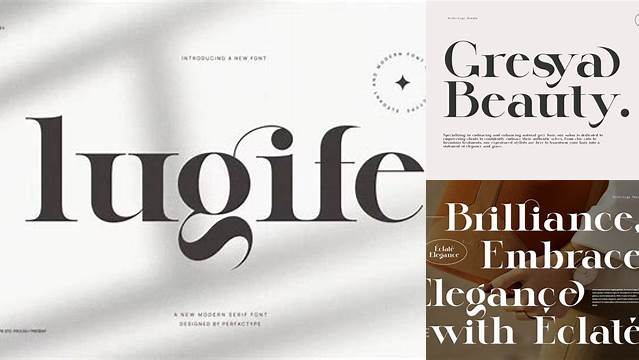
Lugife: Modern Elegant Serif Font Free Download
Lugife: Modern Elegant Serif Font Free Download - Elevate Your Design
Are you on the hunt for a typeface that screams sophistication, elegance, and a touch of modernity? Look no further, my friends, because the Lugife modern elegant serif font free download is here to revolutionize your design projects! This font is not just a collection of letters; it's a statement, a vibe, a whole aesthetic waiting to be unleashed. Let's dive deep into what makes Lugife so special and how you can get your hands on this design gem.
1. Unveiling Lugife: The Essence of Modern Elegance
Guys, first things first, what exactly is Lugife? Simply put, it's a meticulously crafted serif font that embodies the perfect blend of contemporary and classic design principles. Imagine a font that's both timeless and utterly current; that's Lugife. Its clean lines, refined serifs, and balanced proportions make it incredibly versatile, suitable for a wide range of applications. From branding to editorial design, Lugife adds a touch of class and refinement. The beauty of Lugife lies in its understated elegance. It's not overly flashy or complicated; instead, it relies on its inherent quality and attention to detail to captivate the viewer. This makes it an excellent choice for designs that aim to project a sense of trustworthiness, sophistication, and style. Think of luxury brands, high-end publications, or websites that prioritize a premium feel – Lugife fits right in. Moreover, this font’s design is inherently readable. The characters are well-defined, allowing for easy comprehension, even at smaller sizes. This makes Lugife a practical choice for body text, headings, and subheadings. It's a font that doesn't sacrifice legibility for aesthetics, ensuring that your message is communicated clearly and effectively. The font’s versatility extends beyond just its appearance. It’s also designed to work well in various contexts, whether you are creating a website, designing a brochure, or crafting social media graphics. Lugife’s adaptable nature is what makes it a true asset for any designer’s toolkit. The modern aesthetic of Lugife also helps to make it stand out from more traditional serif fonts. It incorporates subtle contemporary elements that keep it fresh and relevant, ensuring your designs feel current and on-trend. So, if you're aiming for a design that is both elegant and modern, Lugife is a top contender.
2. Exploring the Design Features of Lugife Font
Okay, let's get into the nitty-gritty. What makes Lugife tick? What specific design features set it apart from the crowd? First off, let's talk about the serifs. They're not just your run-of-the-mill serifs; they're refined. Lugife's serifs are carefully sculpted, adding a touch of grace and sophistication to each letter. The design of each letter is optimized for readability, and the spacing between characters is meticulously balanced. This attention to detail ensures that your text looks great at all sizes, whether it's a headline on a website or the body text of a printed document. The letterforms themselves are designed with clean lines and a balanced weight distribution. This gives Lugife a polished and professional appearance, making it suitable for various design projects. The font also has a variety of weights, providing flexibility in how you use it. You can choose a lighter weight for a more delicate look or a heavier weight for a bolder statement. In essence, the various weights allow you to emphasize certain elements of your design, like highlighting a particular word or creating visual hierarchies. The font includes a comprehensive set of characters. It covers all the standard letters, numbers, and punctuation marks, as well as a variety of special characters and ligatures. This wide range of glyphs gives you the versatility to use Lugife in any language and ensures you have everything you need to execute your design vision. Moreover, Lugife can be paired with other fonts. Consider pairing it with a sans-serif font for a website or a display font for a logo. The key is to find fonts that complement each other, adding a harmonious feel to your overall design. The choice to use a serif font such as Lugife is also something to take into account. Serif fonts tend to evoke feelings of sophistication and trust. In comparison to sans-serif fonts, they may be a better option for formal projects or projects that are meant to appear professional. Ultimately, Lugife's design features are all about creating a font that is both beautiful and functional, making it a valuable asset for any designer.
3. Why Choose a Serif Font Like Lugife?
Why opt for a serif font at all, especially in a world where sans-serif fonts seem to dominate the digital landscape? Well, let me tell you, a serif font like Lugife modern elegant serif font free download brings a certain je ne sais quoi to the table. Serif fonts are traditionally associated with sophistication, elegance, and a sense of history. They evoke a feeling of trust and reliability, making them a great choice for brands that want to project a sense of authority and heritage. In contrast to their sans-serif counterparts, serif fonts often guide the eye more fluidly across a line of text. The serifs, those little strokes at the end of each character, act as visual cues, helping the reader to follow the text. This can improve readability, especially in longer blocks of text. The versatility of serif fonts is also worth noting. They can work beautifully in a wide range of design contexts. From print materials to websites, serif fonts like Lugife add a touch of class and refinement that's hard to beat. They are also a great way to add visual interest to your designs. The serifs themselves can be varied in style, shape, and weight, allowing you to create a unique and customized look for your project. The best serif fonts, like Lugife, are designed with careful attention to detail, ensuring a balance between aesthetics and usability. It's important to remember that not all serif fonts are created equal. Lugife stands out because of its modern interpretation of the classic serif style. It incorporates subtle contemporary elements, making it a great choice for designs that aim to be both elegant and current. Choosing Lugife means you're not only getting a beautiful font, you're also getting a versatile tool that can elevate your designs. It is also a fantastic way to make your project stand out from the crowd, as serif fonts offer a distinctive look. So, if you're looking to infuse your design with sophistication, trust, and a touch of timeless beauty, a serif font like Lugife is the way to go.
4. Best Applications for Lugife: Where Does It Shine?
Where can you really put Lugife modern elegant serif font free download to work? This font is like a chameleon, adapting beautifully to various design applications. It shines in situations where elegance and readability are paramount. Branding projects are a fantastic fit for Lugife. Imagine a logo, a business card, or a set of brand guidelines that feature this font. The sophisticated and modern look of Lugife immediately elevates the brand's image, signaling quality and attention to detail. Editorial design is another area where Lugife excels. Think about the headings and body text of a magazine article, a book chapter, or a newsletter. Lugife's readability and elegant letterforms make it a perfect choice for these contexts. The font can enhance the reading experience and give your content a polished, professional feel. Website design is another application where Lugife performs well. Use it for headings, subheadings, or even body text (especially for sites that prioritize a premium feel). The font adds a touch of sophistication and helps your website stand out. Moreover, Lugife is an excellent option for print materials like brochures, flyers, and posters. Its clarity and style make it a perfect choice for these projects. The font's versatility makes it easy to incorporate into different design layouts and styles. Lugife is also great for social media graphics and quotes, especially when you want to give your posts a high-end feel. Because it has a modern and elegant look, it makes your social media content more visually engaging and attractive. In summary, Lugife is a versatile font that can be used in various contexts. It is perfect for any project where elegance, readability, and a touch of sophistication are desired. Whether it's for branding, editorial design, website design, or print materials, Lugife is a font that can elevate your designs.